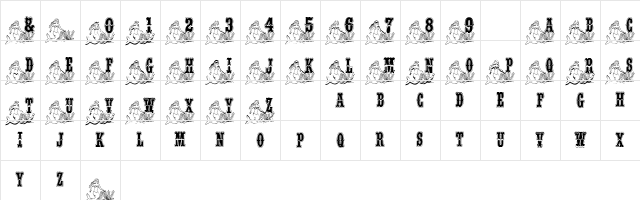
BJF Mermaid Free Font
BJF Mermaid BJF Mermaid
Style: BJF Mermaid
Version: Version 1.0; November 2000; (dedicated to Suzanne)
Designer: Judy
Design Context for BJF Mermaid
BJF Mermaid is a composed and adaptable typeface that performs quietly and consistently across a wide range of design contexts.